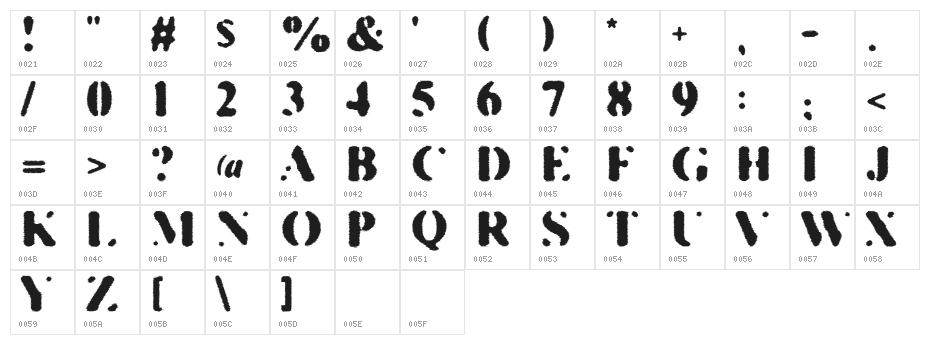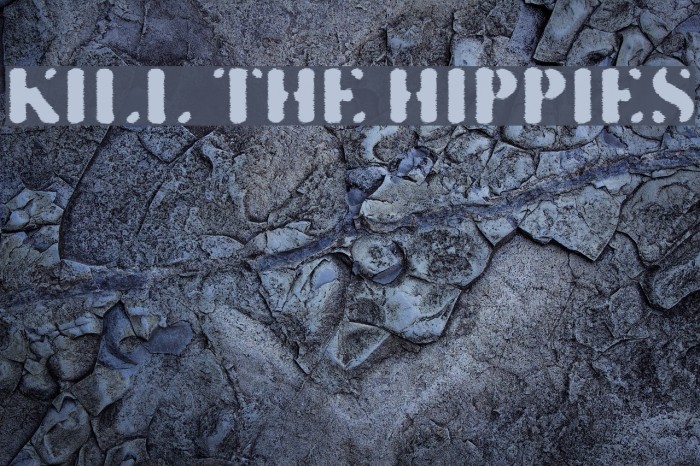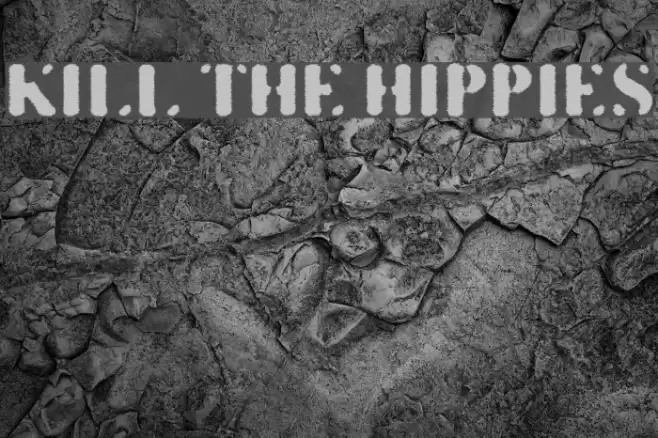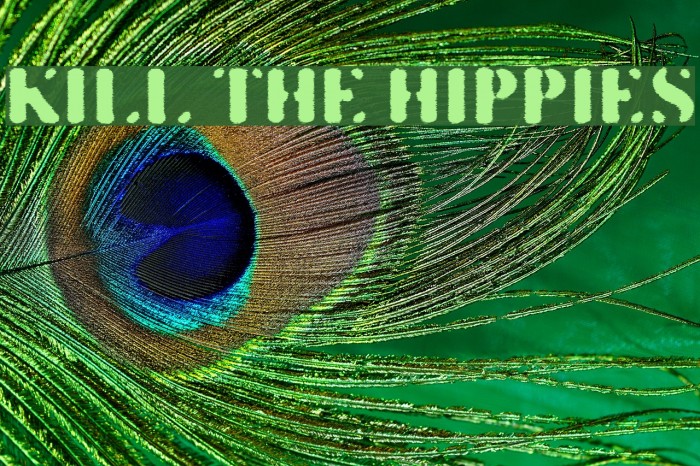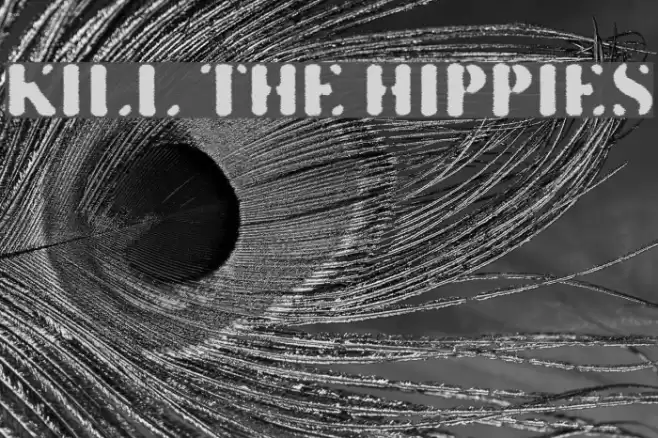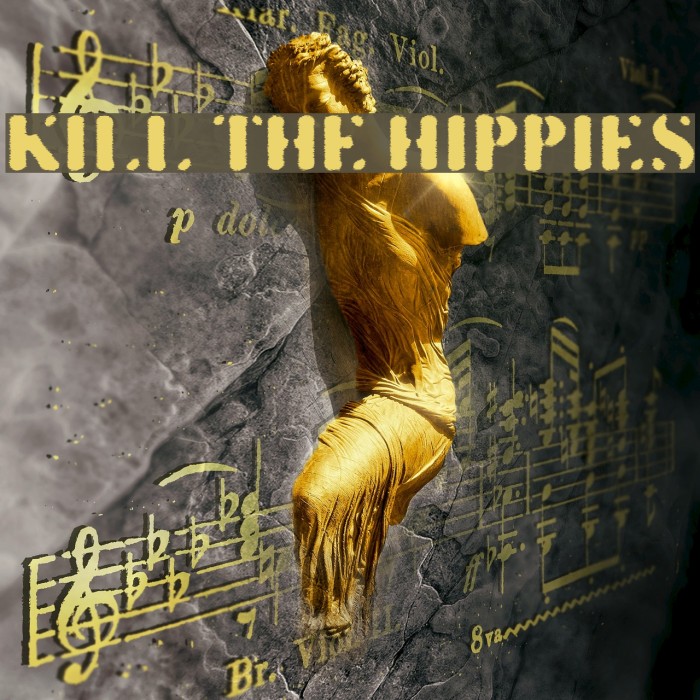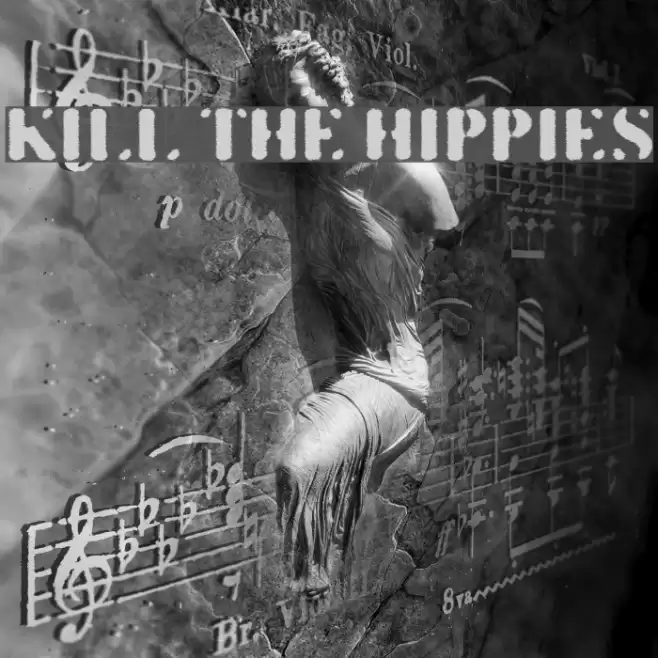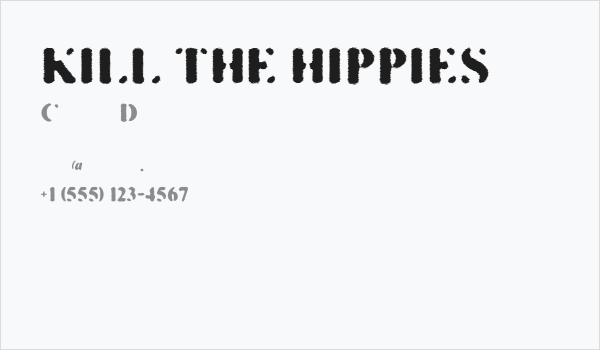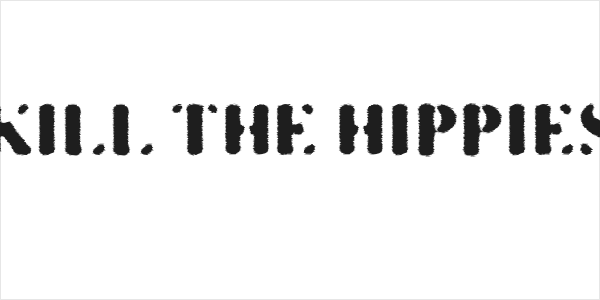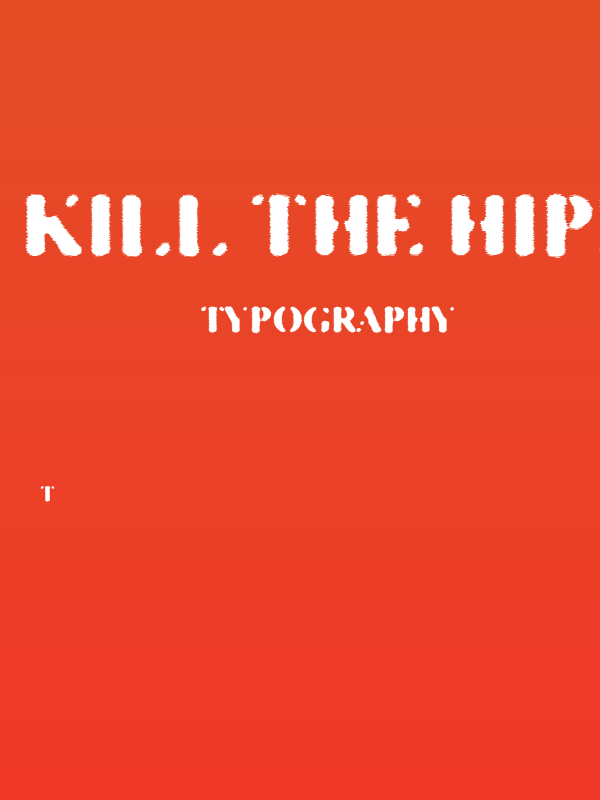
KILL THE HIPPIES Font
KILL THE HIPPIES Description
This font features a bold and rugged stencil style, characterized by its distinct cut-out sections within each letterform. The uppercase letters have a strong presence with sharp edges and a military-inspired aesthetic. The numbers and special characters maintain this bold, impactful look, making them suitable for attention-grabbing designs. The font's unique style is reminiscent of industrial and utilitarian design, often used in contexts where a strong, authoritative message is needed.
Overall StyleIndustrial, Military
Use CaseHeadlines, Posters, Branding
Proposed ProjectsIdeal for posters, signage, branding projects, and any design requiring a strong, authoritative presence.